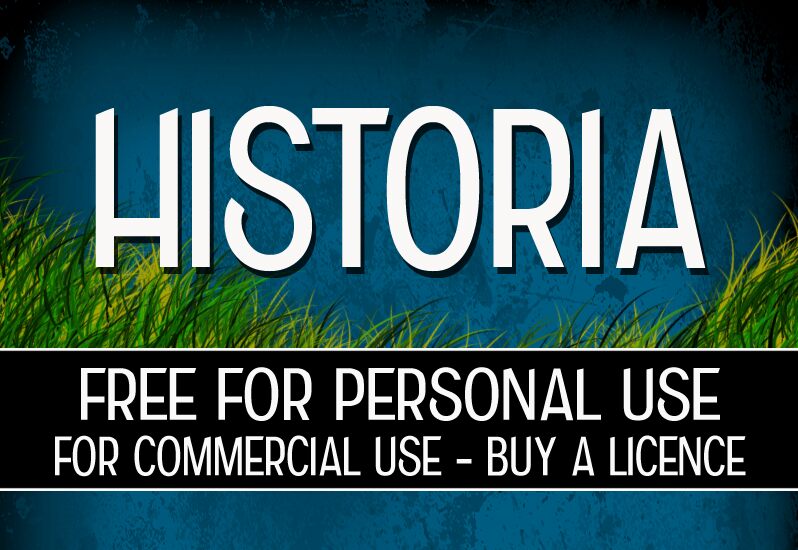
CF Historia by CloutierFontes is a free retro display font with extremely tall, narrow capitals and a sharp modernist silhouette. Strong changes in stroke width give the lettering a dramatic poster quality, with broad verticals set against fine joins and clean, open shapes.
It can create a period title for film posters, magazine covers, or fashion branding. The same elongated construction links those uses to cocktail-bar signage, where its elegance and compact footprint suit an Art Deco-inspired setting.
CF Historia Regular is a font by CloutierFontes, designed by Steve Cloutier in 2013.